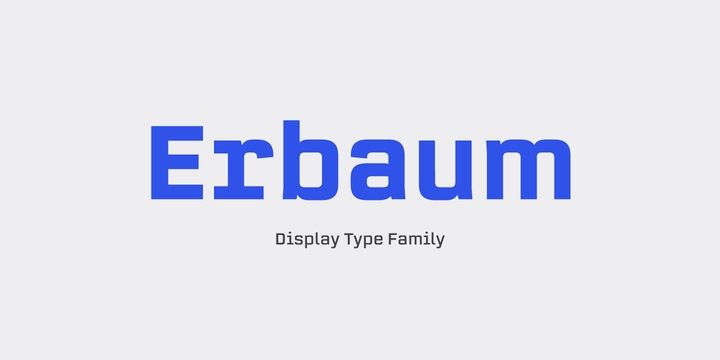
Erbaum Font
Erbaum Font is perfect for environmental conservation branding, forest management documentation, tree service company marketing, botanical garden signage, eco-tourism publications, sustainable forestry materials, arborist certification programs, and nature preserve communications where forest heritage and environmental stewardship are emphasized.
What makes Erbaum Font so exciting is its organic ability to capture the enduring strength and natural wisdom of ancient trees through deeply rooted letterforms that embody the timeless stability and environmental importance of forest ecosystems while maintaining excellent readability. The grounded character design reflects the patient growth and ecological significance that makes trees essential to our planet's health.
The Erbaum Font family includes light, regular, medium, bold, and condensed weights, with tree-inspired decorative elements and forest ornaments that provide comprehensive tools for creating authentic forestry branding and environmental conservation design systems.
The font's sturdy character construction and organic proportions create immediate associations with forest conservation and sustainable tree management practices. Each letterform has been designed to evoke the strength and longevity that defines healthy forest ecosystems and professional arboricultural work.
Erbaum Font excels in creating memorable environmental communications that inspire forest conservation and sustainable land management. The typeface's natural authority makes it ideal for forestry services, environmental organizations, and conservation groups promoting responsible forest stewardship.
From national forest services to urban tree care companies, this font brings environmental credibility that resonates with communities committed to forest conservation and sustainable environmental practices. The versatile design maintains its forest character across both traditional conservation materials and modern digital environmental platforms.